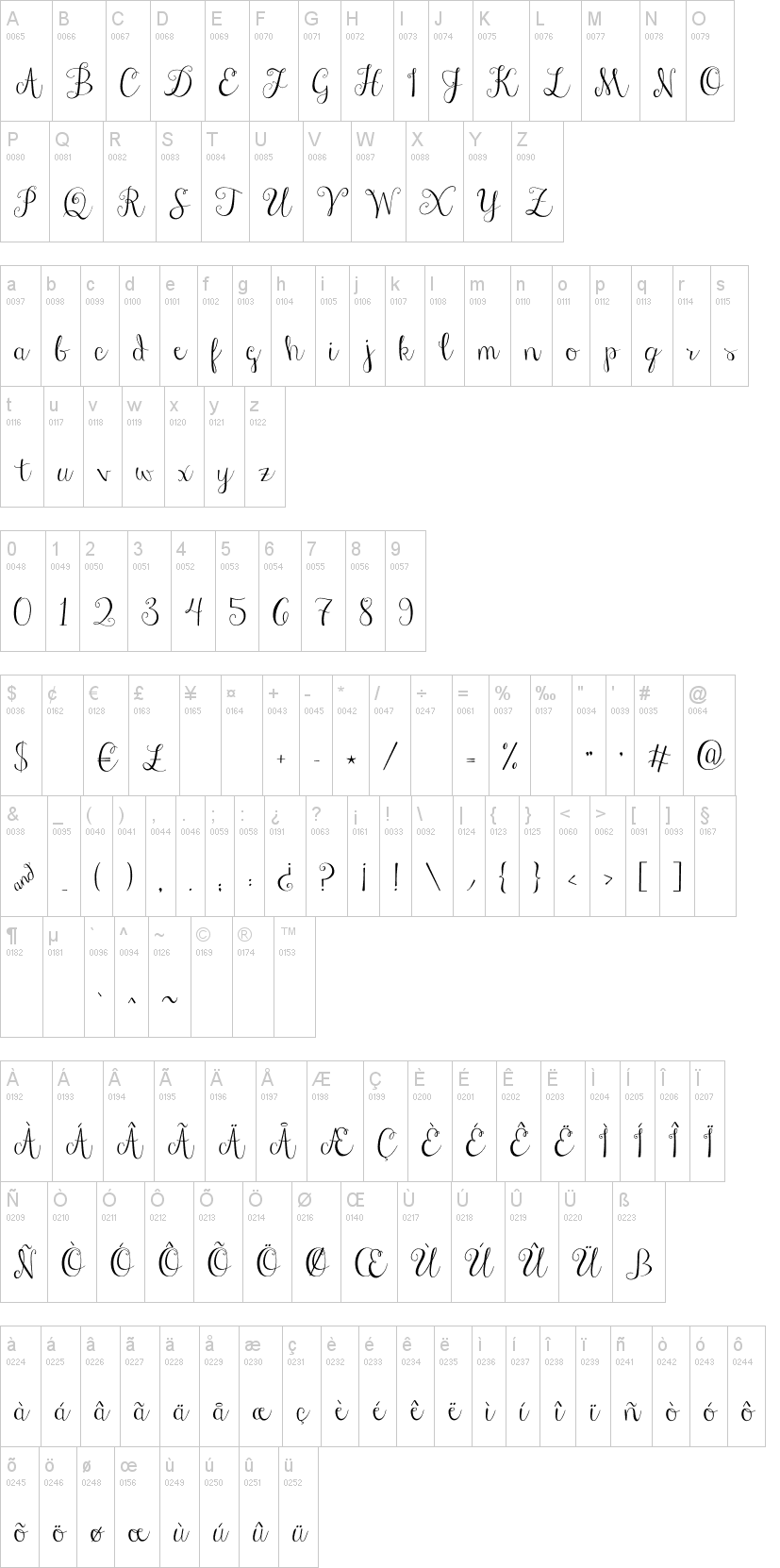
There is an "opening" tail for beginnings of words for the lowercase r and s in the bar key spot | (on my keyboard it is on the same key as the backslash: shift + \).